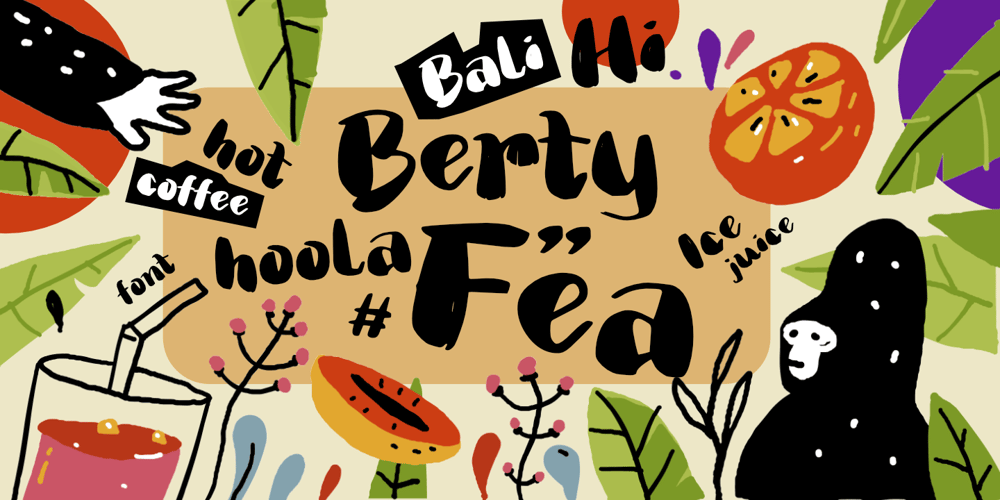
Berty Font Family was designed by Wahyu Eka Prasetya, Afiat Sukmaraga and published by Hati. Berty contains 1 styles and family package options. Berty. Introducing our new brush-style font that exudes dynamic energy with its thick and thin strokes. This font is perfect for adding a lively and tropical feel to your designs. Inspired by the vibrant spirit of Latin American culture, this font brings a sense of adventure and warmth, making it ideal for café menus, youth events, and promotional materials for refreshing iced drinks. Each character is crafted to mimic the fluidity and spontaneity of brushstrokes, creating a natural and artistic look. Whether you’re designing for a tropical-themed party, a trendy café, or a youth-oriented campaign, this font will infuse your work with a sense of excitement and fun. Experience the vibrant and expressive qualities of this brush-style font, perfect for capturing the essence of a lively and carefree lifestyle.